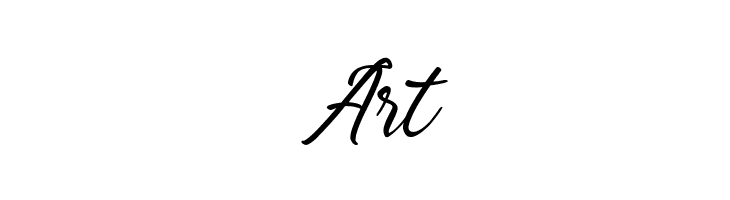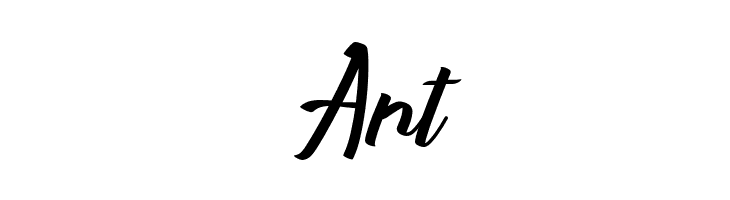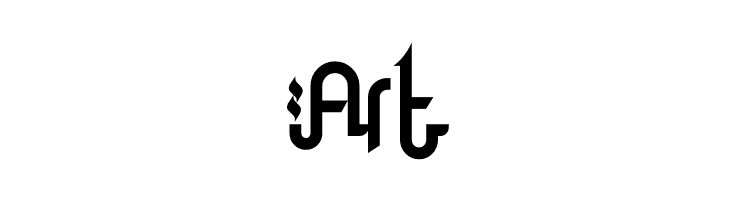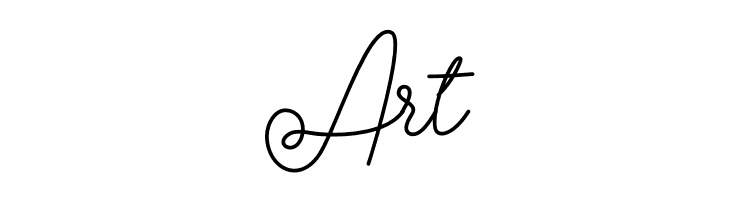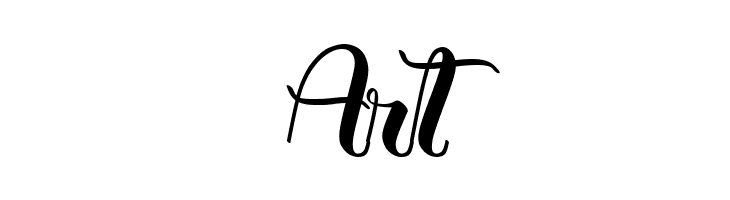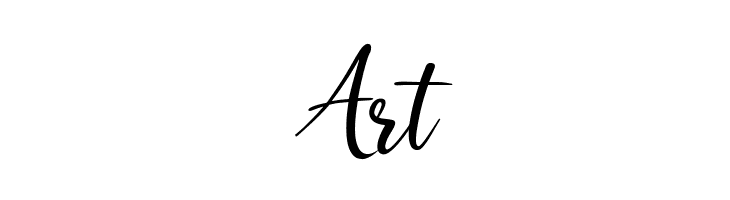
A lively handwritten font with fluid strokes and elegant flair.
An elegant and fluid script font with smooth, flowing strokes.
A dynamic and elegant script font with flowing, connected letterforms.
A decorative script font with elegant, flowing cursive letters and intricate swashes.
A dynamic and elegant script font with flowing curves and smooth connections.
A bold, geometric font with intricate ornamental details.
A flowing, elegant script font with interconnected letters and ornate swashes.
A playful and elegant script font with flowing, interconnected strokes.
A flowing, calligraphic script font with elegant, connected strokes and decorative flourishes.
An elegant, flowing script font with cursive, connected letterforms and graceful flourishes.